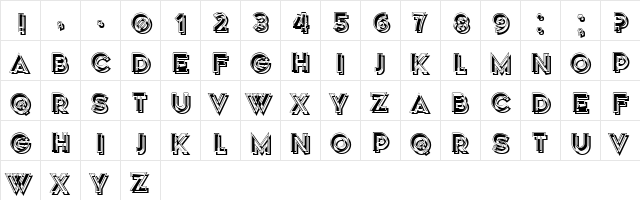
Speaker Regular
Design Context for Speaker Typeface
Speaker is a composed and adaptable typeface that performs quietly and consistently across a wide range of design contexts.